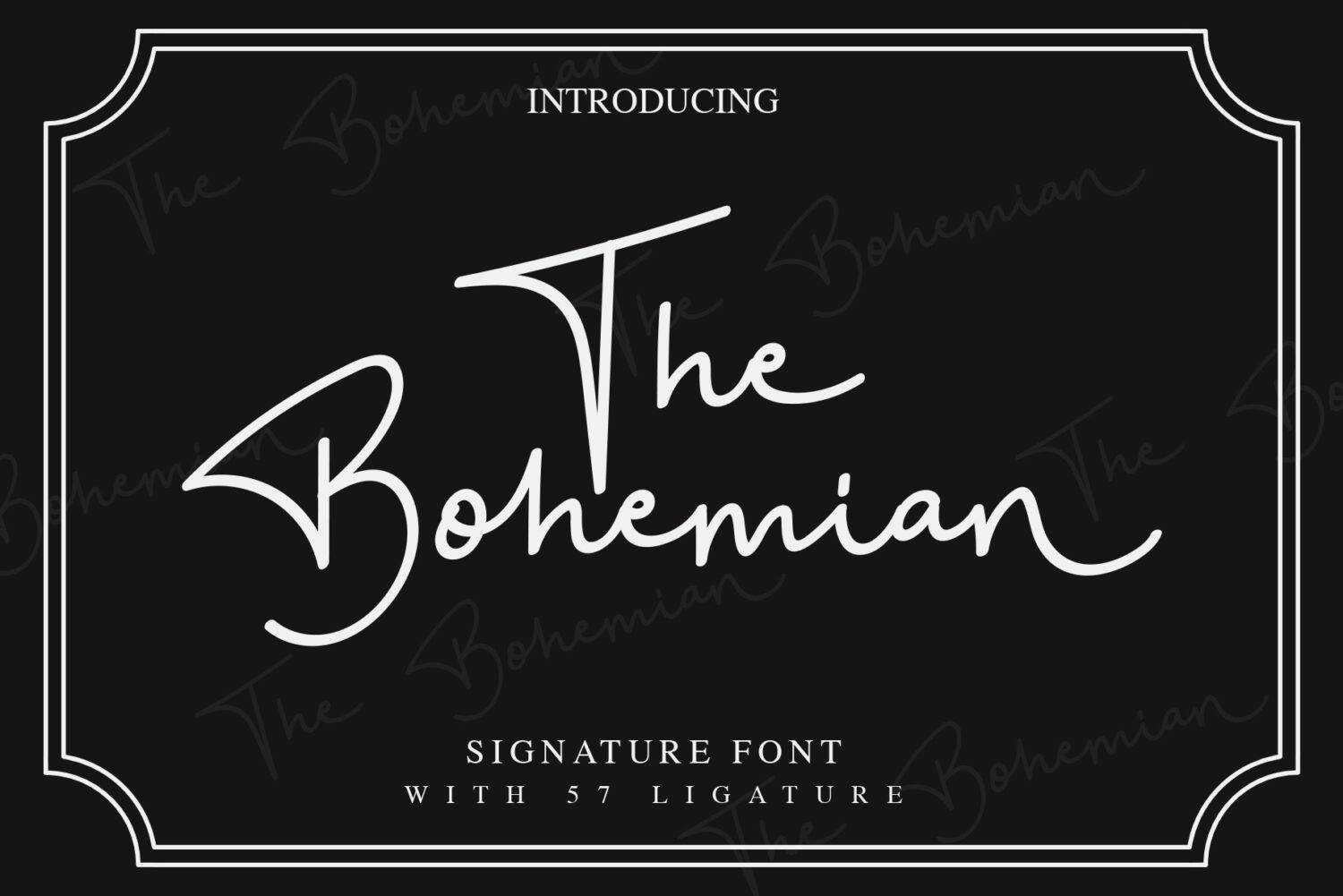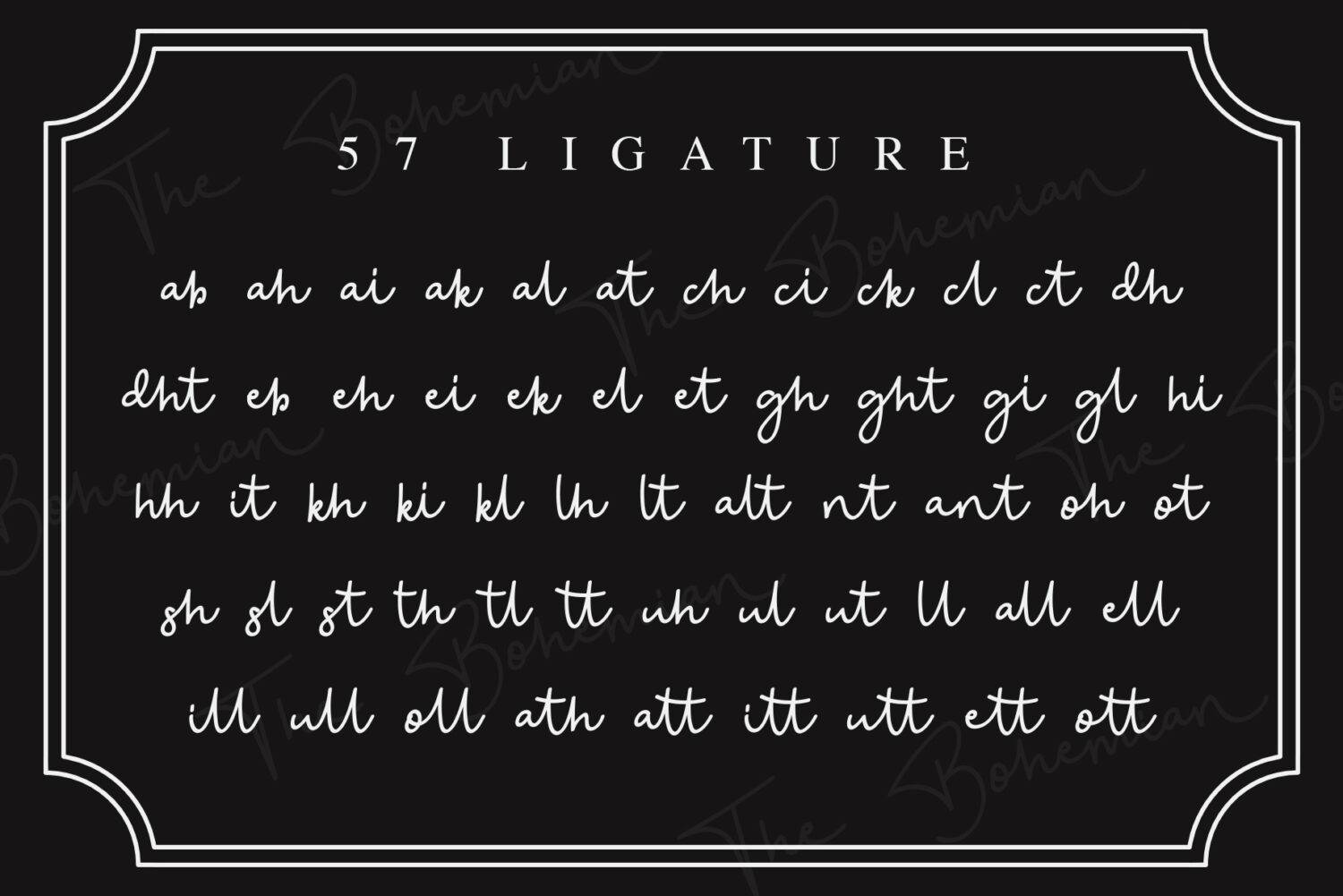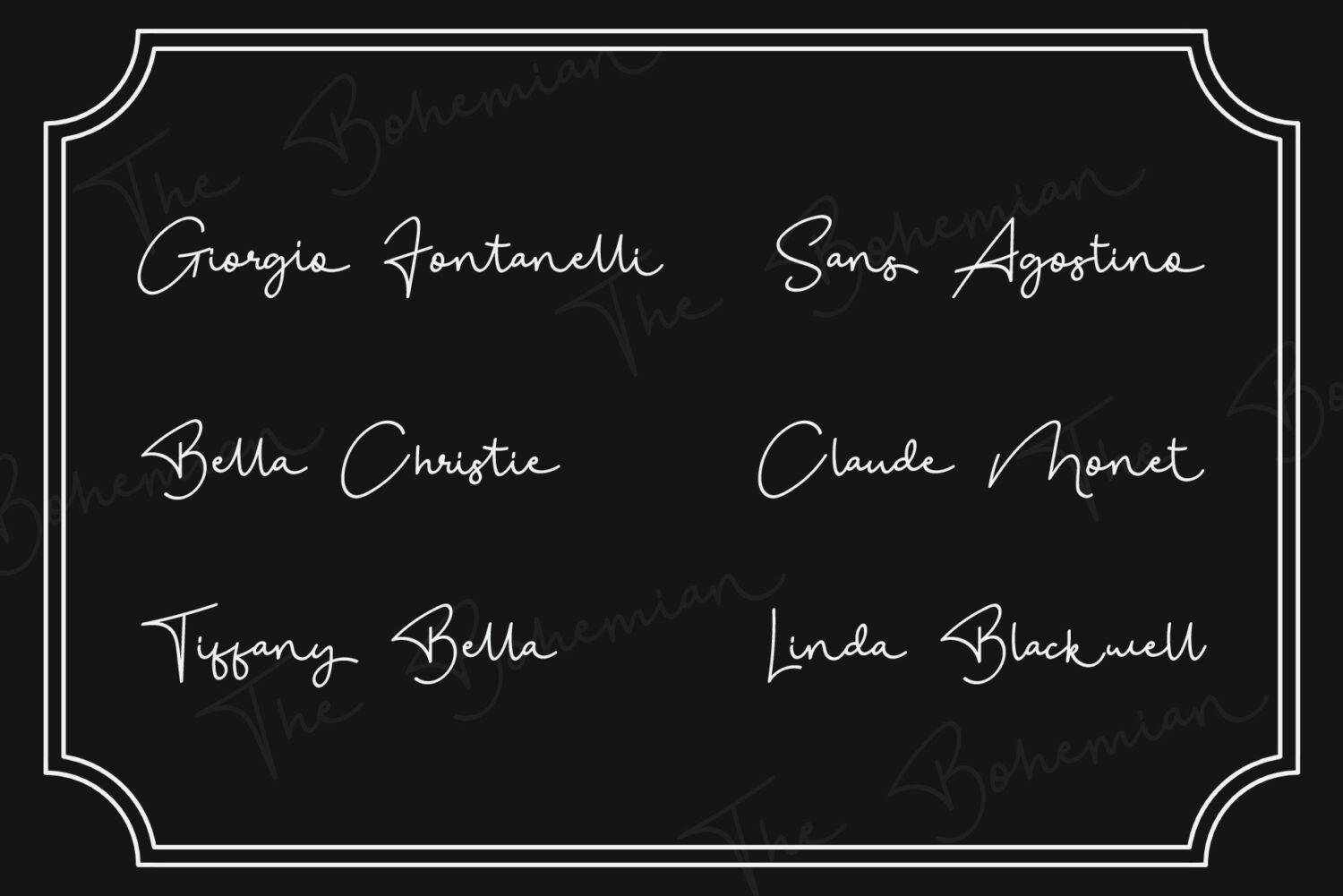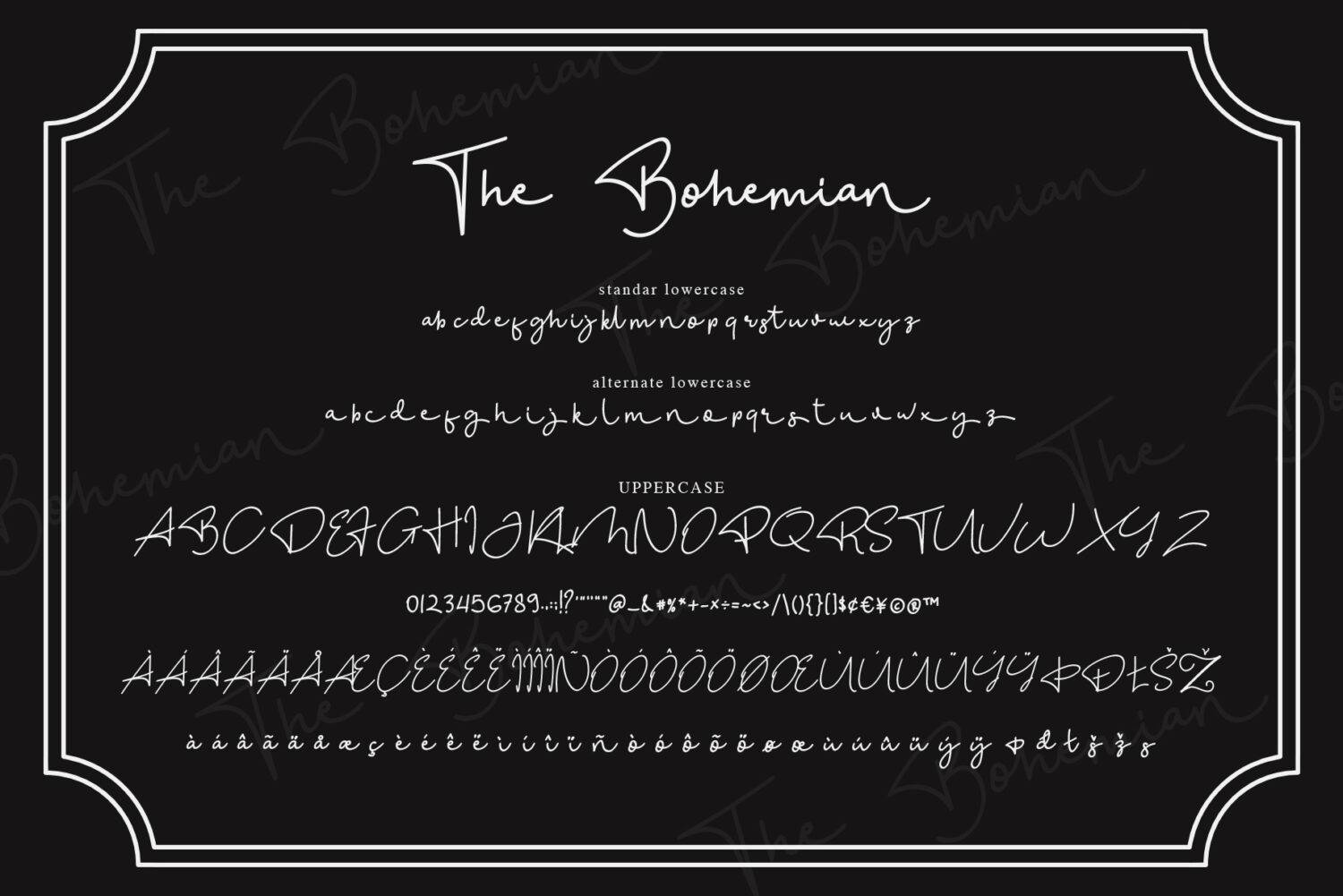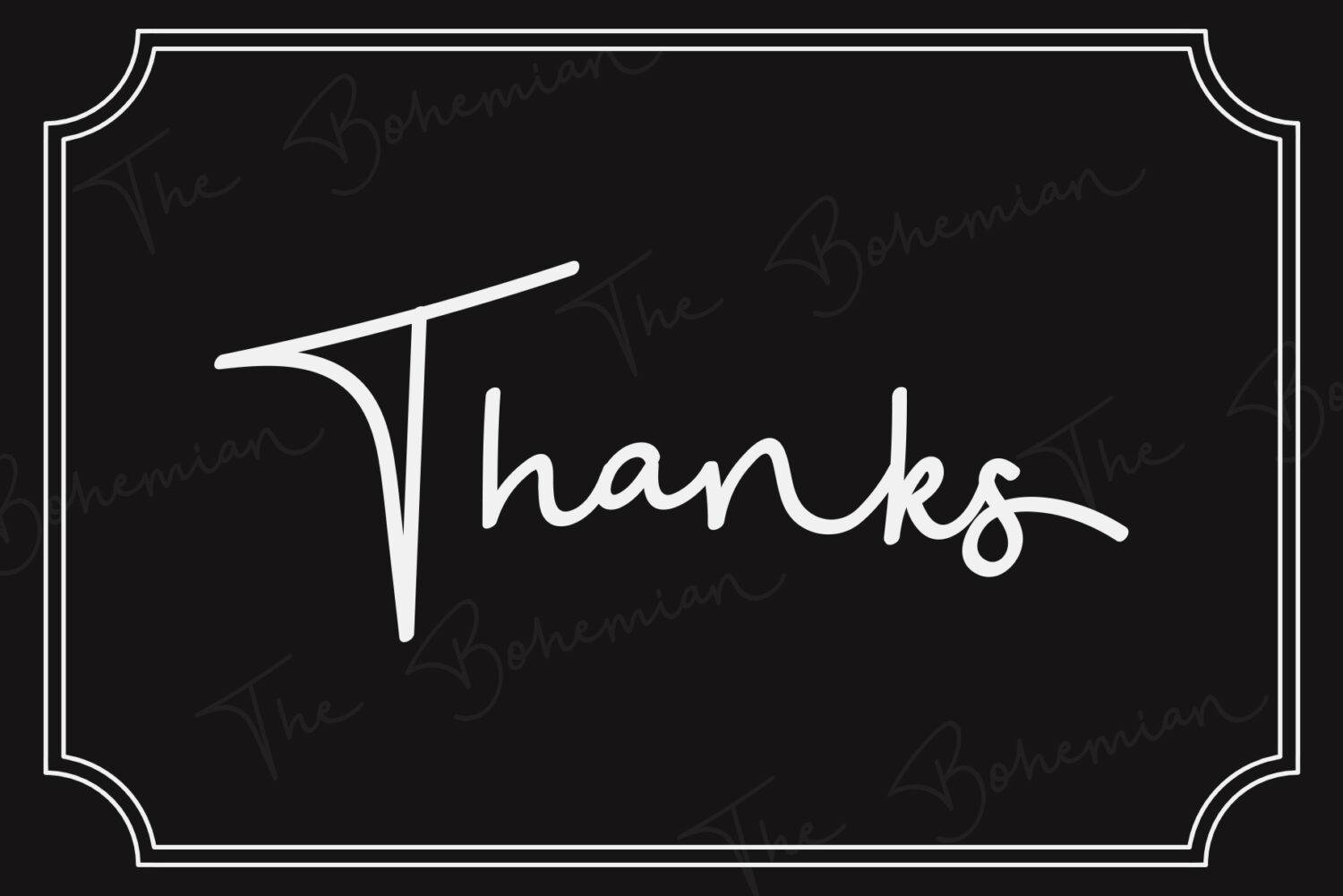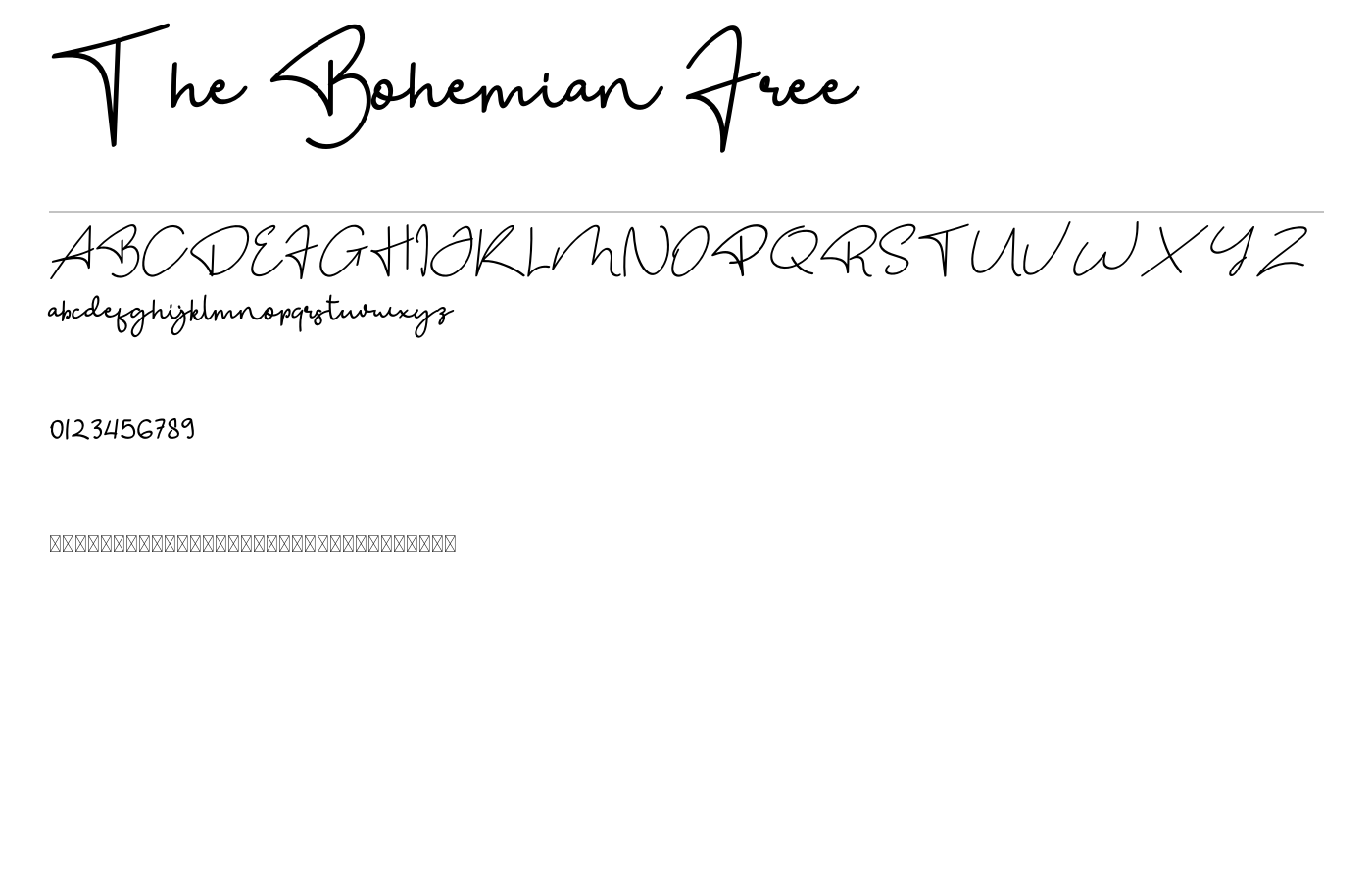
The Bohemian Font is a delicate and elegant handwritten script with a casual, artistic flair, featuring thin, flowing lines that create a light and airy feel. Its unique letterforms and natural, personal touch make it perfect for creative projects, invitations, branding, and any design that benefits from a charming, boho-inspired style. This font shines in contexts where a soft, informal yet stylish aesthetic is desired.
The Bohemian Font
About The Bohemian Font